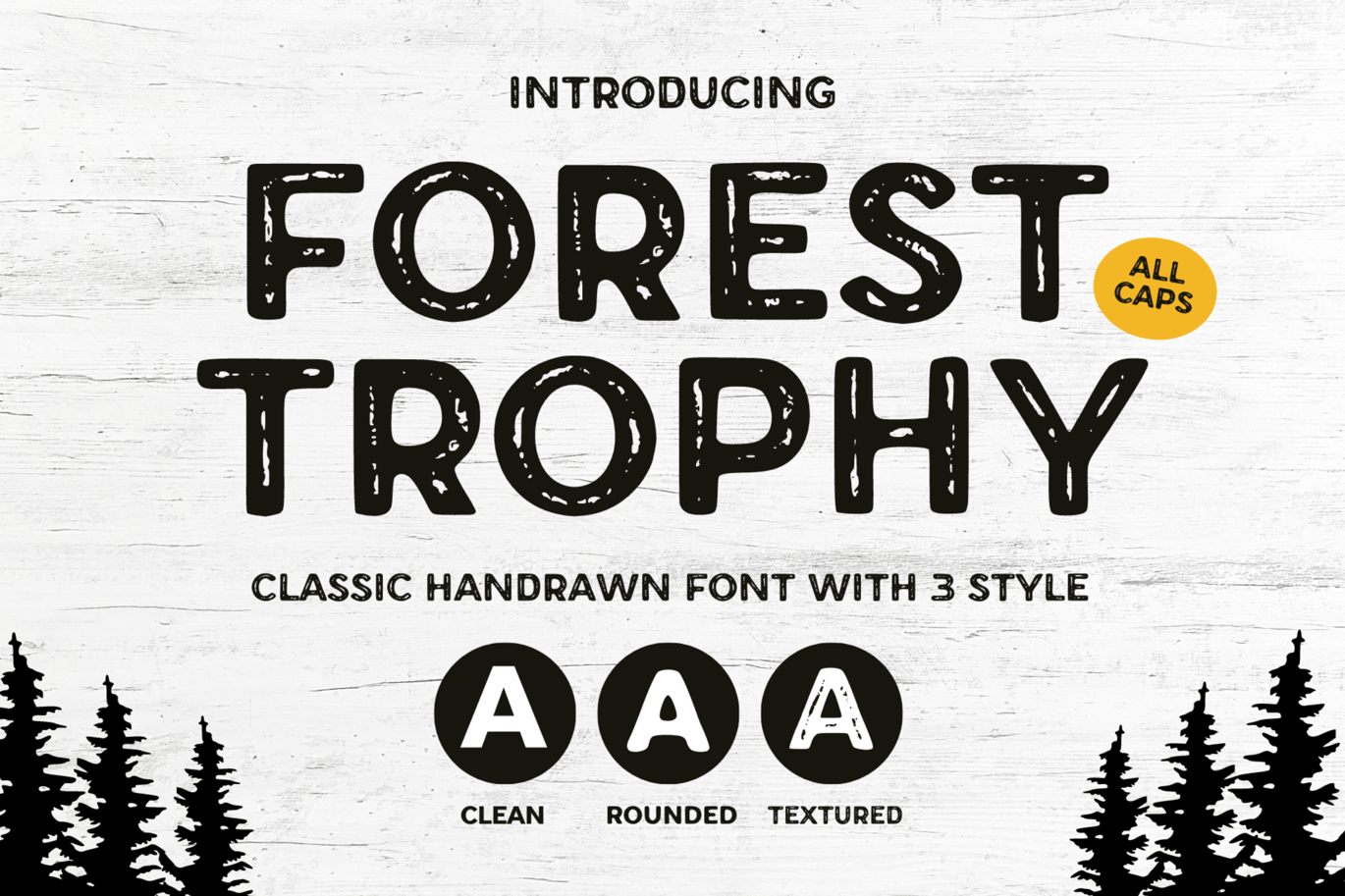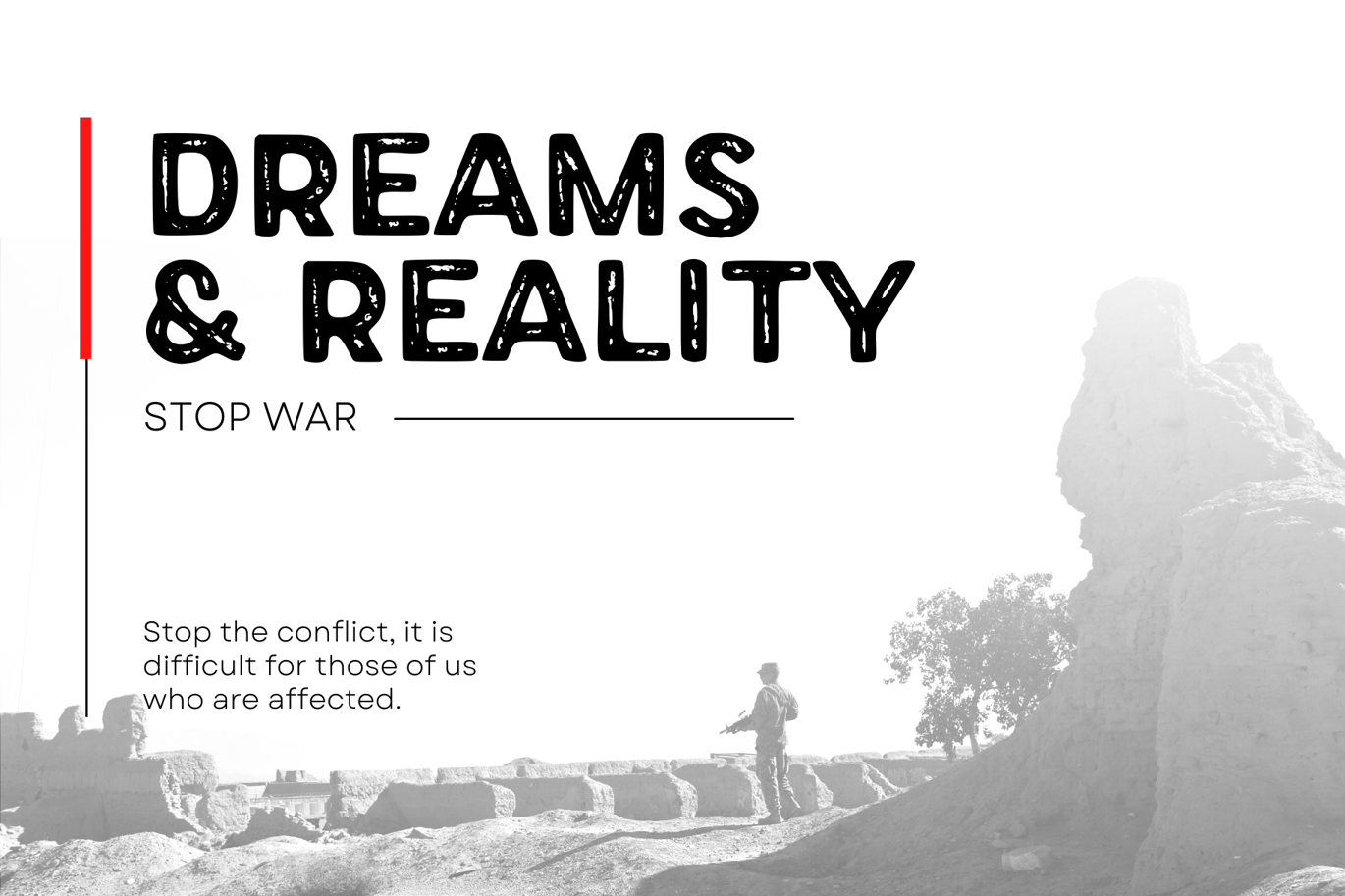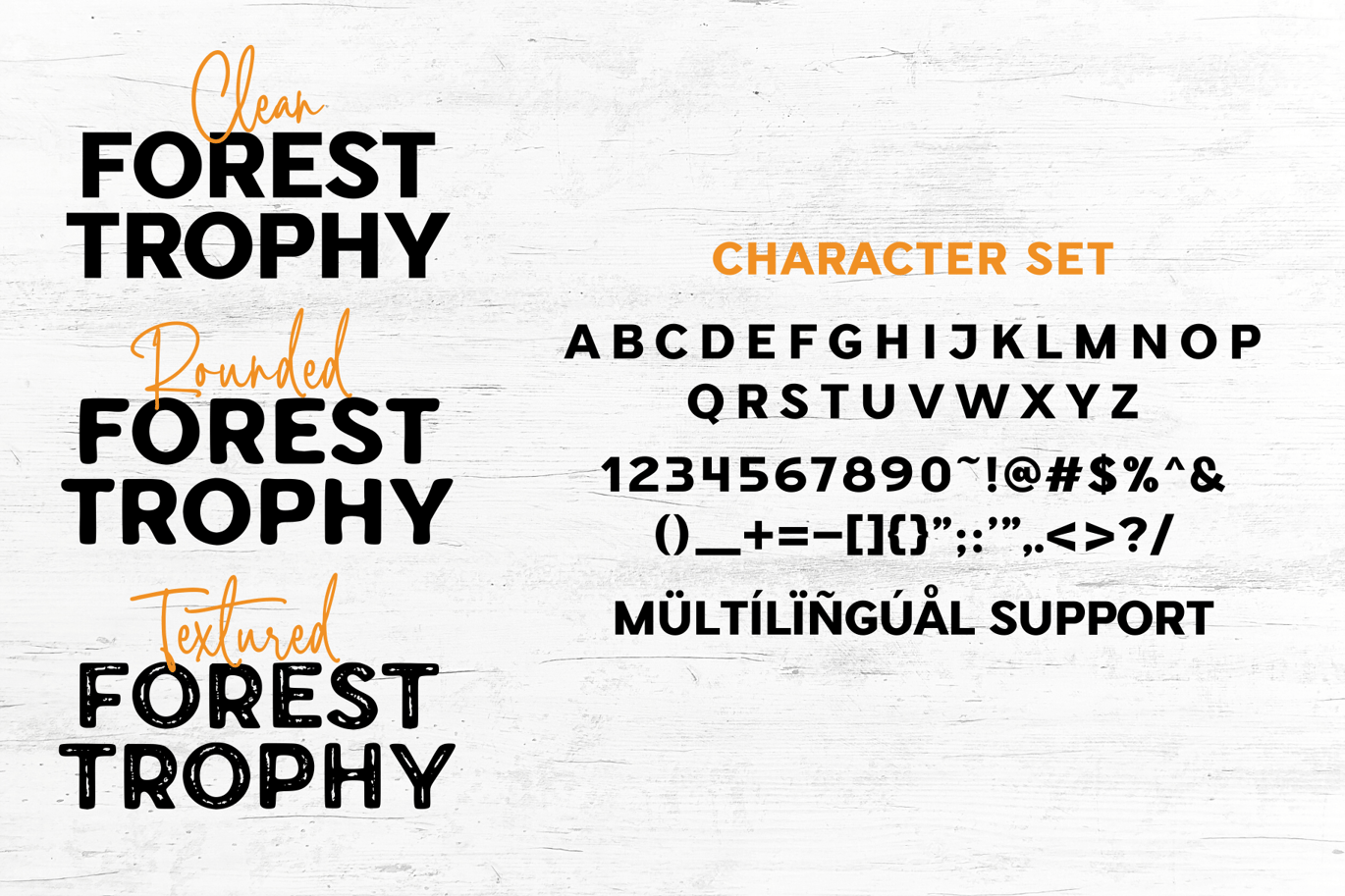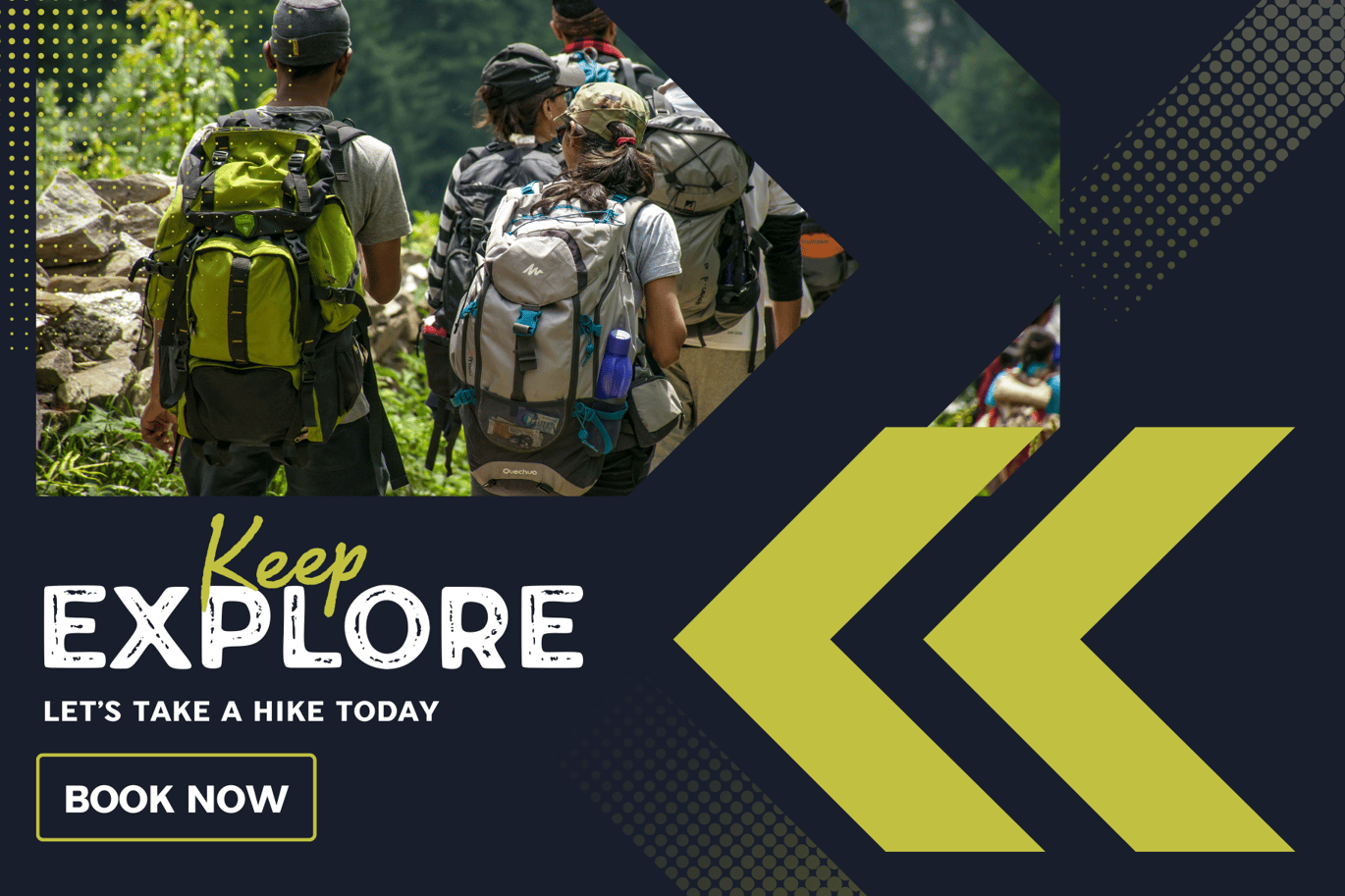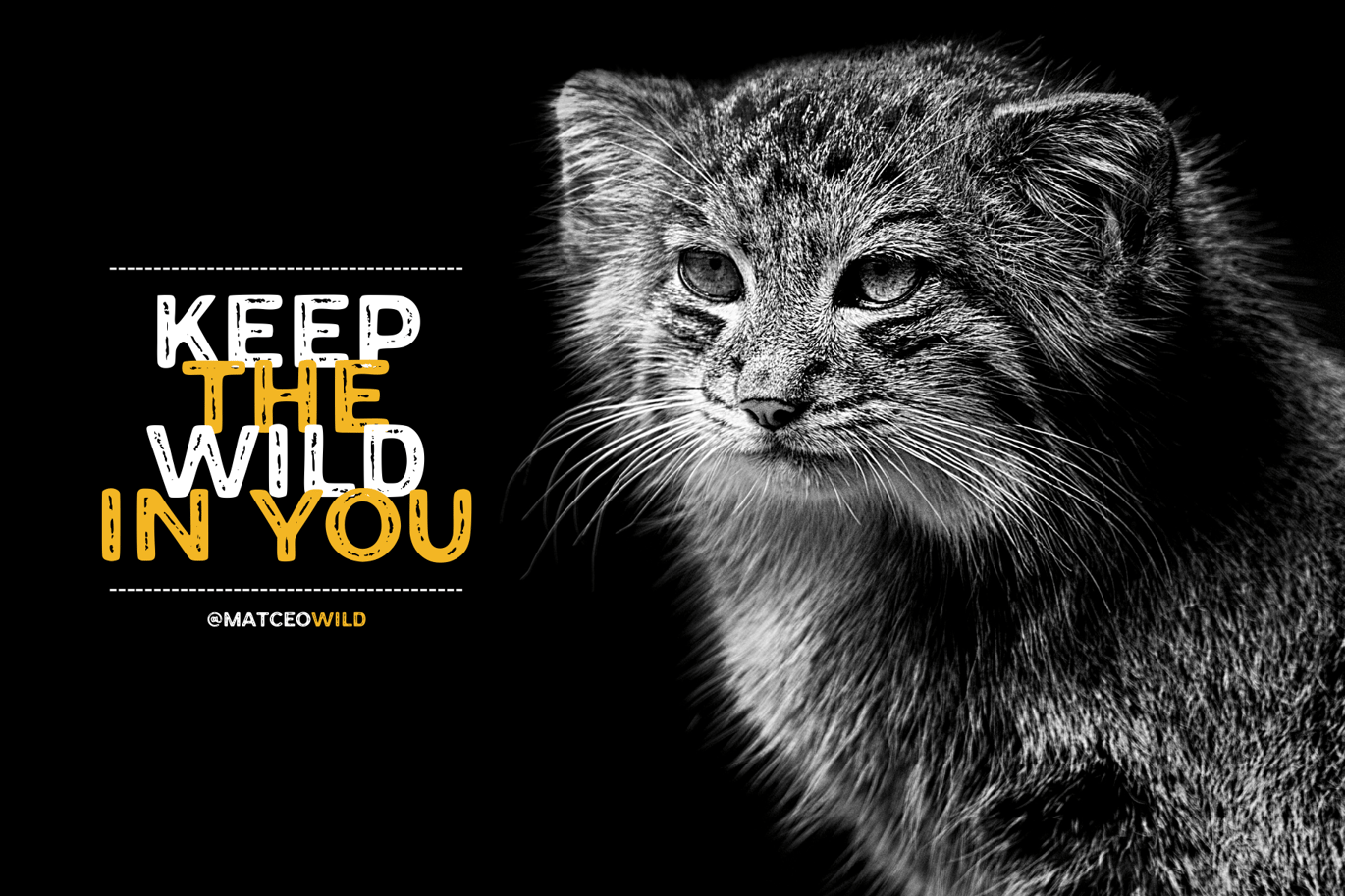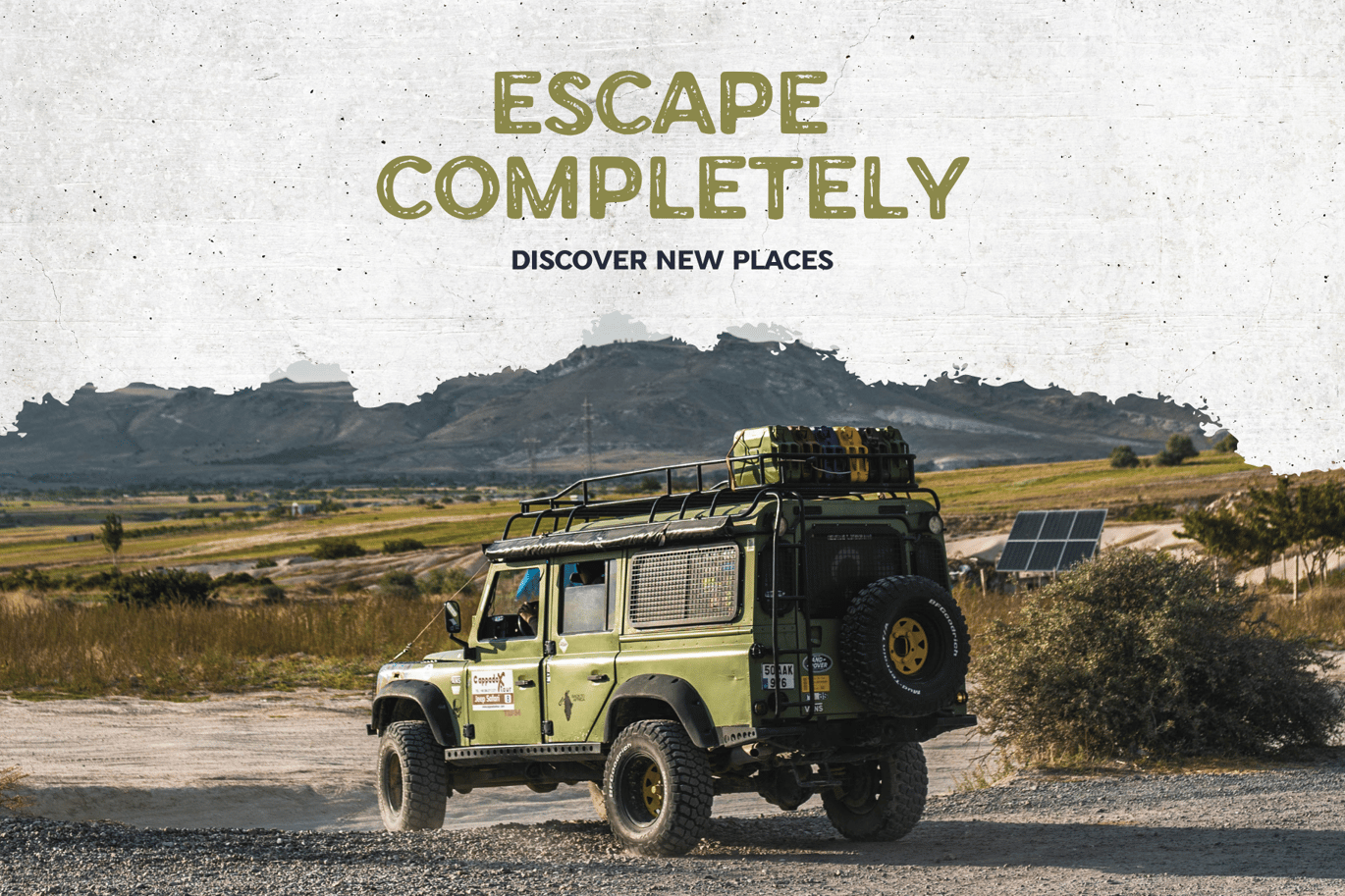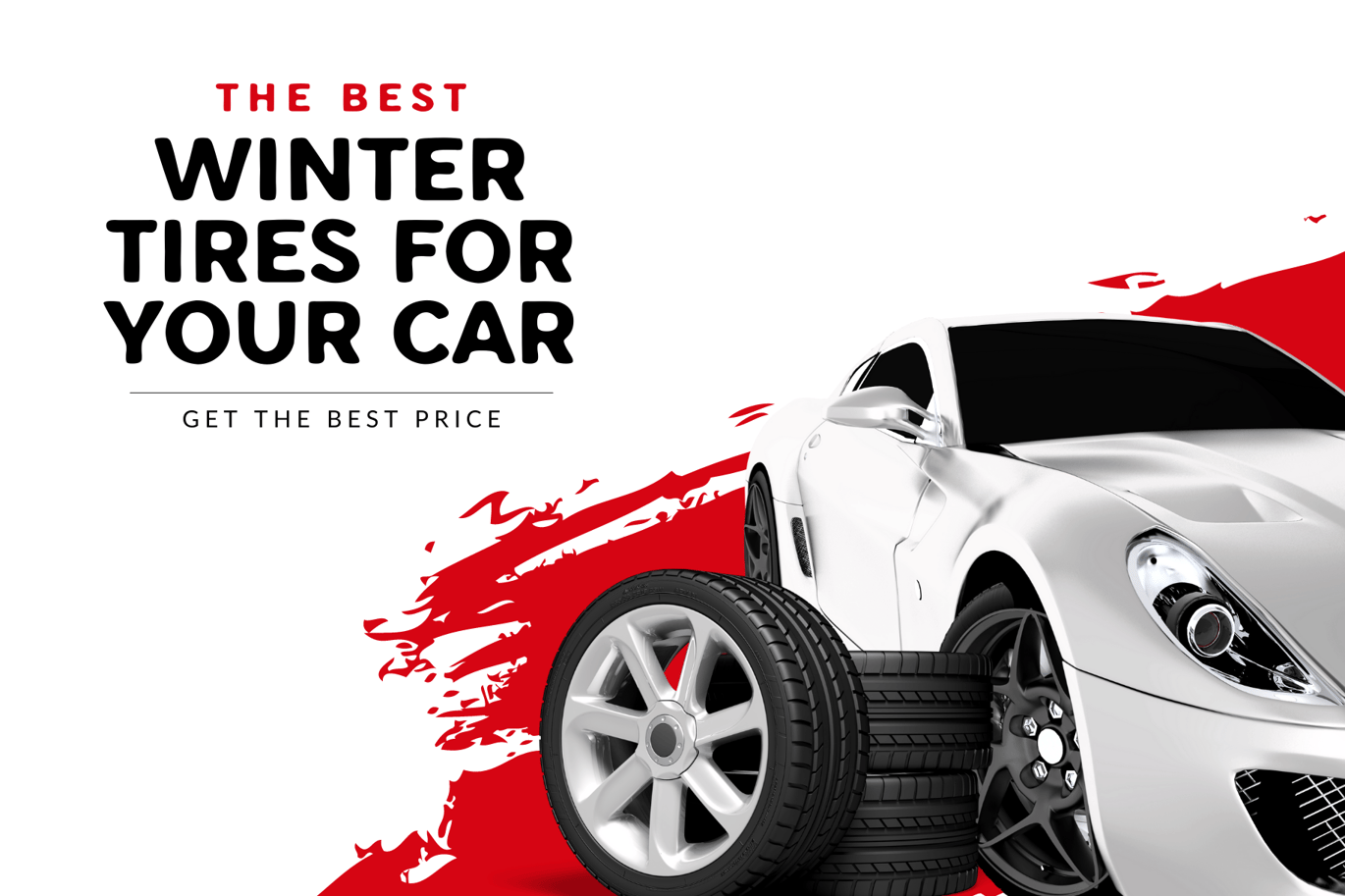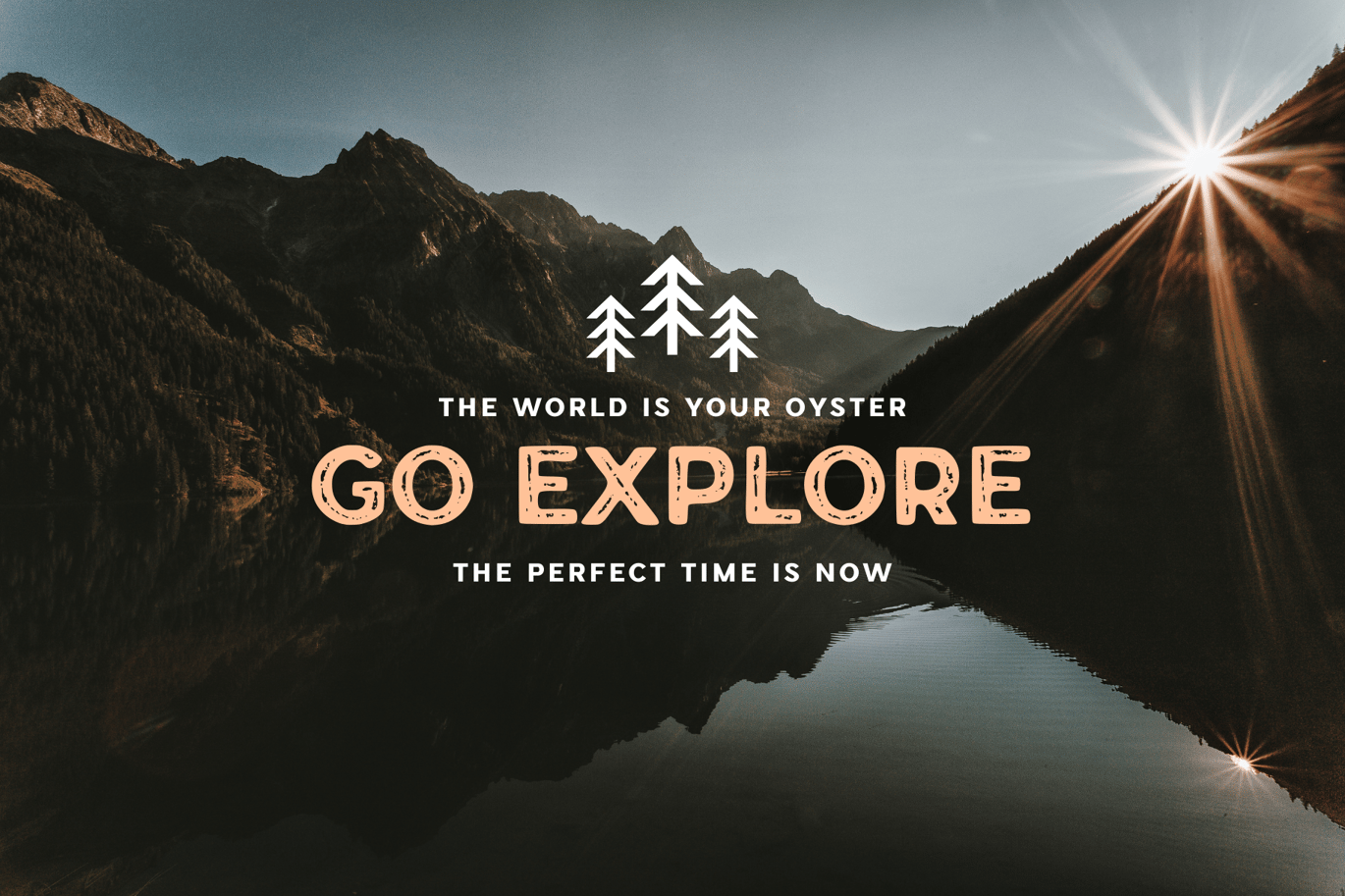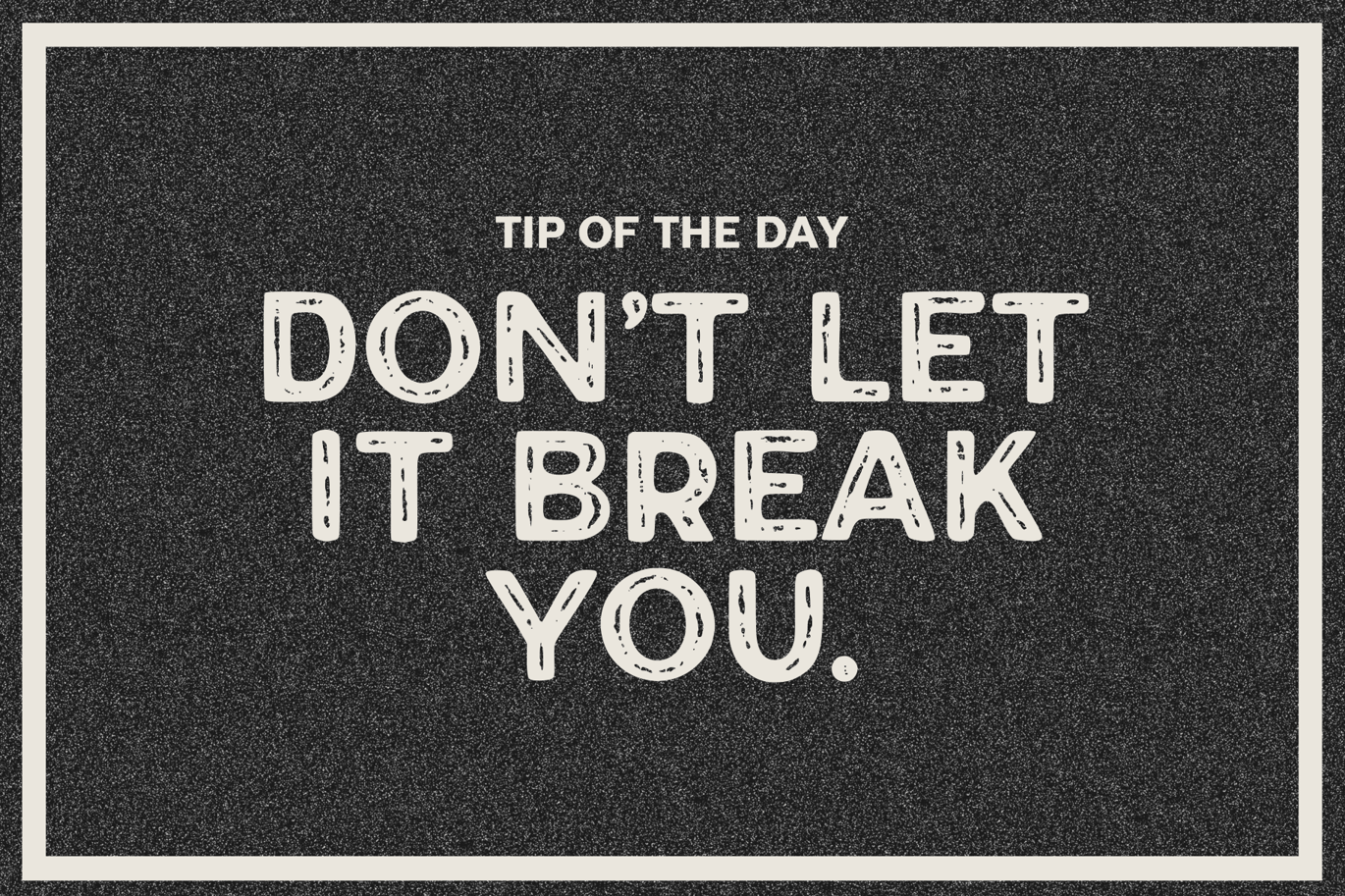
Forest Trophy – Classic Textured Font
Forest Trophy – Classic Display Font comes with a rough texture that gives a natural and vintage impression.
- Uppercase and lowercase letters
- Multilingual, numerals, and punctuation
- Available in 3 styles: Clean, Rounded & Textured Style